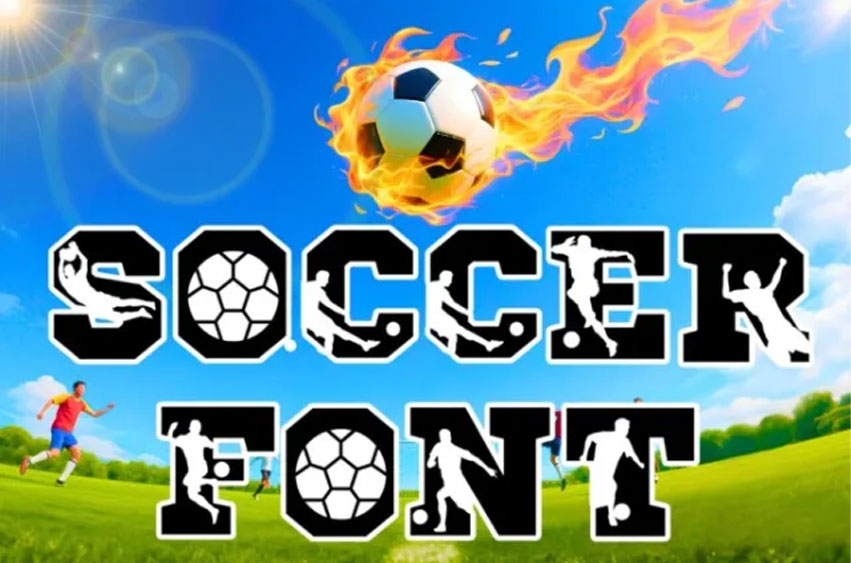
Soccer Sport Font
Soccer Sport Font is an energetic sports-themed typeface that kicks things up a notch!
With action-packed soccer silhouettes built into each letter, it’s ideal for team banners, sports jerseys, tournament posters, and youth league branding.